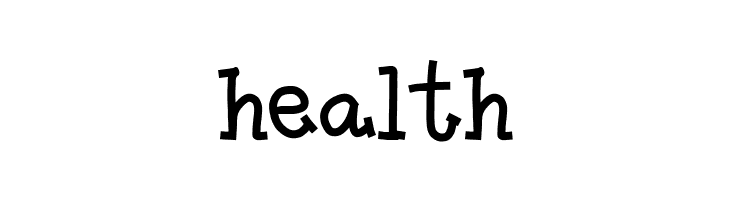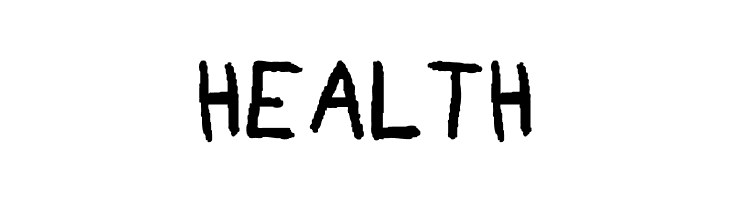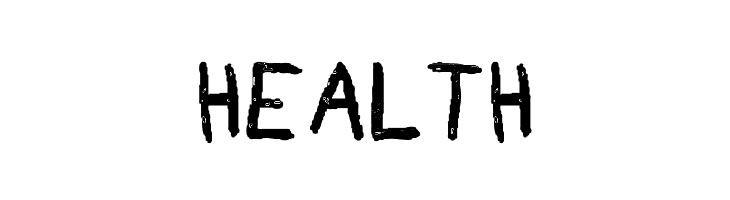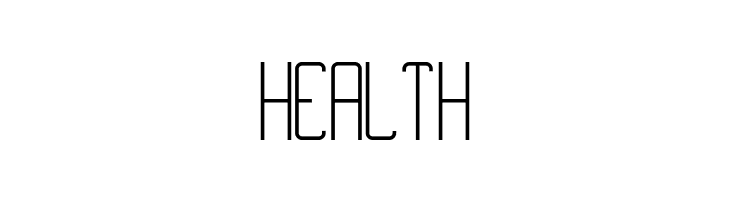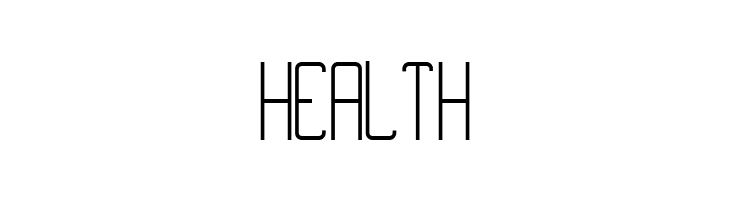
• Verumai
A playful, bold outline font with a hand-drawn appearance.
• RiseStarHand
A playful handwritten font with smooth, rounded strokes and a casual style.
• Amutham
A playful, hand-drawn font with bold, rounded strokes and a whimsical style.
• Peyarili
• Pavanam Regular
A clean and modern sans-serif font with balanced spacing and consistent stroke width.
• Kavivanar Regular
A casual handwritten font with smooth curves and a friendly appearance.
• Rain & Neer
A bold, hand-drawn font with a textured, rustic appearance.
• Rain&Neer
A rugged, hand-drawn font with a textured, distressed appearance.
• Nimiram
A modern, geometric font with thin, elongated characters and a sleek design.
• Nimiran
A modern, geometric font with a sleek, futuristic design.
• Neythal
A playful, hand-drawn font with tall, narrow characters and a whimsical style.
• RiseStarHand-SemiBold
A playful, semi-bold handwritten font with smooth curves and a casual style.
• RiseStarHand-Light
A playful, handwritten font with light, airy strokes and a casual style.
• Aaram Regular
A modern, monospaced font with tall, narrow characters and consistent stroke width.
• Pavanam
A modern, clean sans-serif font with uniform stroke width and excellent readability.
• Kavivanar
A playful, handwritten font with a slight slant and smooth, rounded characters.